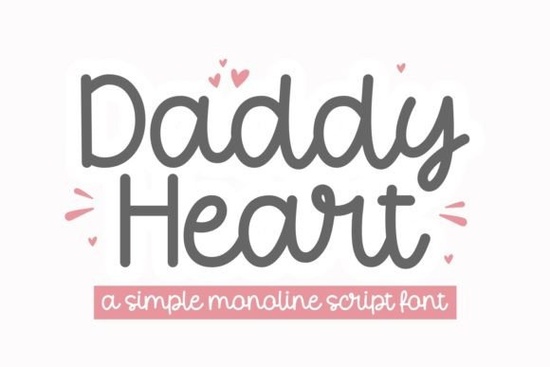
If you’re looking for a handwritten font with personality and warmth, the Daddy Heart Font might be just what your next project needs. It’s not overly polished and that’s the point. Each letter carries the subtle imperfections of real handwriting, making it feel personal and approachable. Whether you’re designing Father’s Day cards, custom t-shirts, or even throw pillows with heartfelt messages, this typeface adds charm without trying too hard.
It works especially well when you want to convey affection, nostalgia, or a handmade vibe. Think of it as the typographic equivalent of a coffee-stained recipe card passed down from dad imperfect, but full of character. And if you’ve ever browsed Creative Fabrica for script fonts, you know how many options there are. What sets Daddy Heart apart is its balance: legible enough for small prints, yet loose enough to feel authentic.
What kinds of projects does this font work best for?
You don’t need to limit yourself to Father’s Day (though it’s great for that). Here’s where it really shines:
- Greeting cards birthdays, anniversaries, “just because” notes
- T-shirt and tote bag designs phrases like “Dad Jokes Only” or “World’s Okayest Dad” look playful in this style
- Stickers and labels for planners, water bottles, or gift tags
- Home decor wood signs, canvas prints, embroidered pillows
- Small business branding bakeries, craft shops, or family-run services that want a friendly, down-to-earth tone
If you like the relaxed, hand-sketched energy of Garnesline or the cozy farmhouse charm of Farmhouse Font, you’ll probably feel right at home with Daddy Heart. It’s got that same casual confidence no stiff serifs or corporate vibes here.
How does it pair with other fonts?
Because Daddy Heart has a strong personality, you’ll want to pair it with something clean and simple. A sans-serif like Montserrat or Lato in regular weight lets the script breathe. Avoid pairing it with another script unless you’re going for intentional chaos and even then, proceed with caution.
For contrast, try combining it with fonts that have more structure. The Doodline Font offers a similarly playful baseline but with tighter spacing, which can create interesting tension when layered. Or, if you’re working on teacher-themed projects later in the year, Kindness Teacher brings a softer, classroom-friendly energy that still complements Daddy Heart’s warmth.
Is it beginner-friendly for non-designers?
One tip: avoid using all caps. This font was designed to mimic natural handwriting, so lowercase or sentence case will always look more authentic. If you need emphasis, try bolding a word or increasing its size slightly instead.
Where else can I use this beyond print?
Digital use is totally fine social media graphics, email headers, blog banners. Just remember that readability matters more on screens. Use it for headlines or short quotes rather than body text. Pair it with a solid background color to help those delicate strokes stand out.
And if you’re into seasonal designs, don’t sleep on pairing it with Lovely Valentine Duo come February. While that set leans romantic, Daddy Heart can add a grounded, familial counterpoint think “Love You, Dad” on a Valentine’s card from the kids.
Curious how it compares to other handwritten fonts? You can see the Daddy Heart Font in action alongside similar styles on Creative Fabrica’s search page. Filtering by “script” or “handwritten” will show you alternatives, but few carry the same dad-centric charm.
Quick checklist before you start designing
- Use sentence case it looks more natural
- Pair with a simple sans-serif let the script be the star
- Avoid tiny sizes test readability at your final output size
- Layer with texture subtle paper grain or fabric overlays enhance the handmade feel
- Export as vectors when possible keeps edges crisp for cutting machines or large prints
Start with one small project maybe a mug wrap or a sticker sheet and see how the font behaves in your workflow. Once you get comfortable, you’ll find yourself reaching for it again and again, not just for dad stuff, but anytime you want to add a little heart to your design.